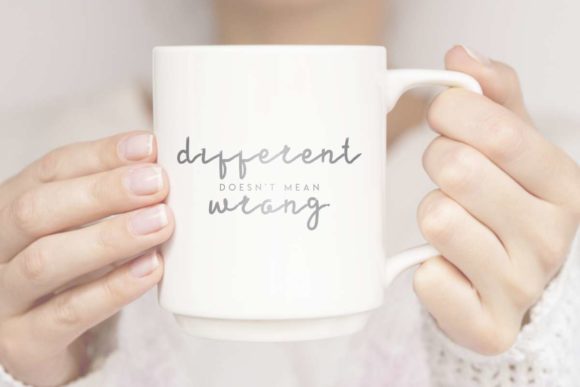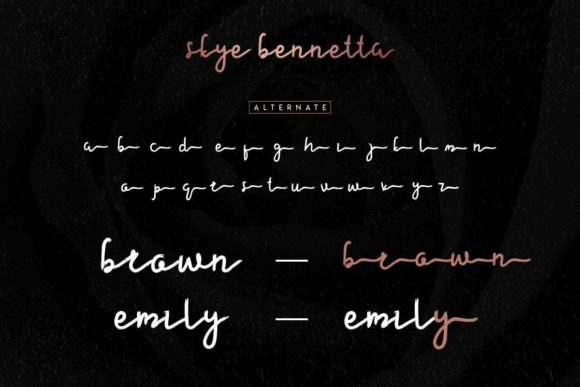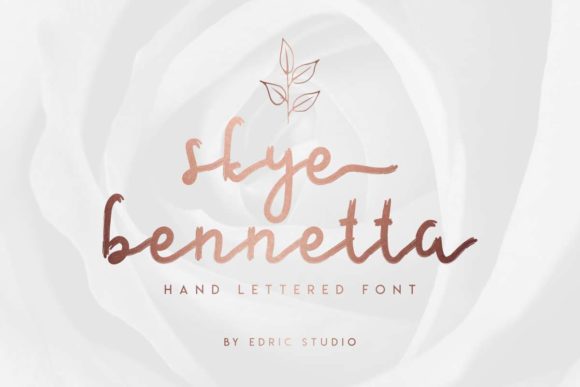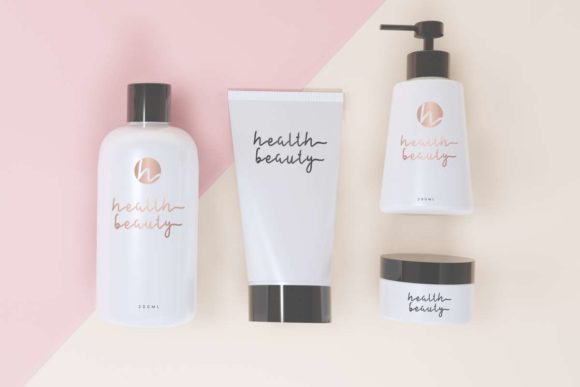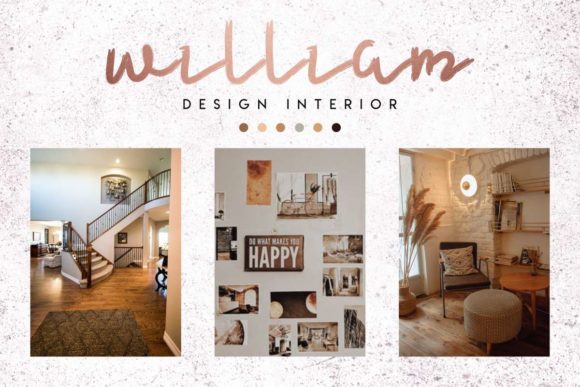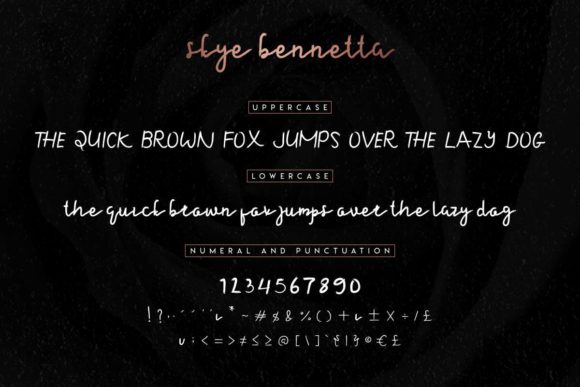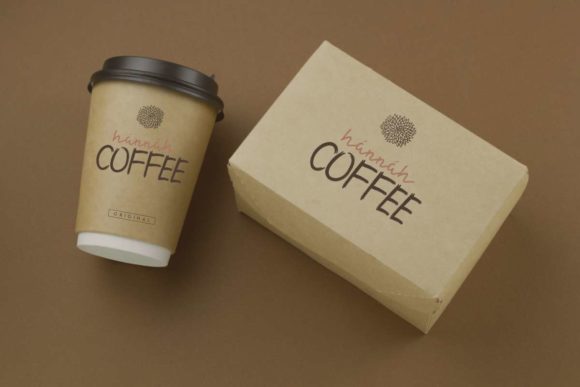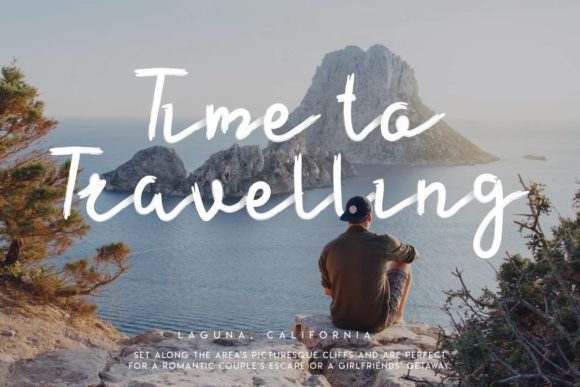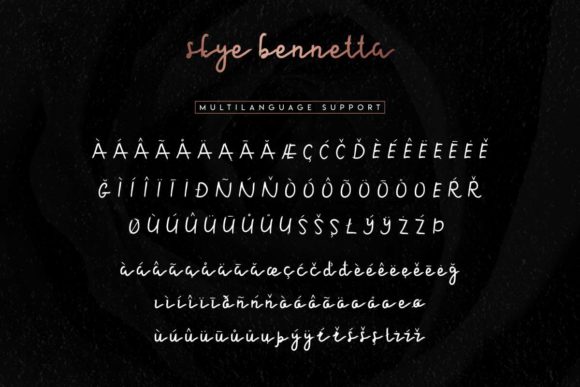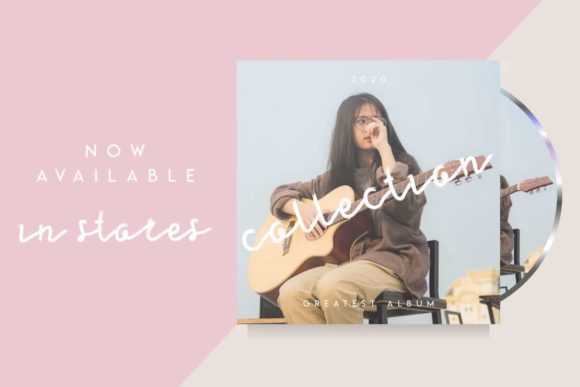
Skye Bennetta Font
About Skye Bennetta Font
Skye Bennetta feels equally charming and elegant. This stunning handwritten font is a stylish homage to classic calligraphy. Fall in love with its authentic feel and use it to create gorgeous wedding invitations, beautiful stationary art, eye-catching social media posts, and cute greeting cards.